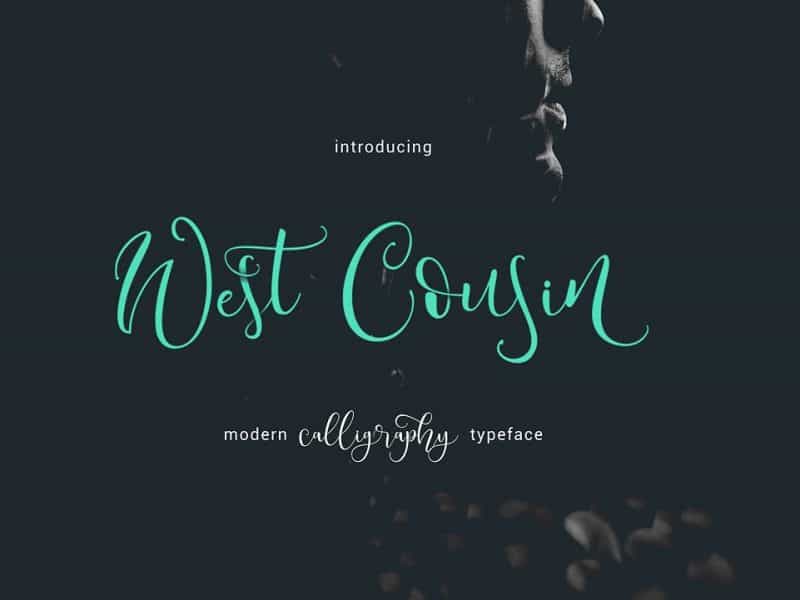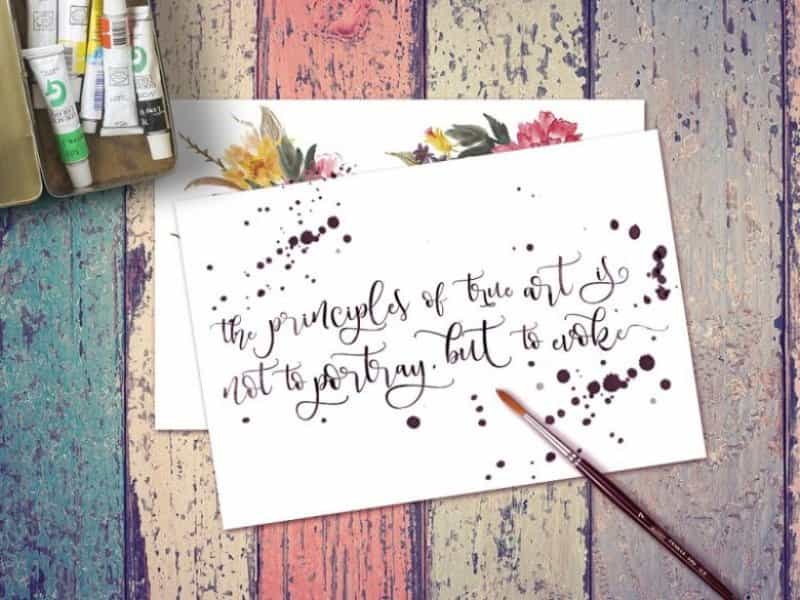
Introducing West Cousin Font! It was created and is now shared by thirtypath. West Cousin Typeface – a modern calligraphy font. West Cousin is a perfect choice for logotype, website header, fashion design,wedding card design and much more. The West Cousin font has a classy style, it has all the lower & uppercase letters, a wide range of punctuation marks and numerals as well as multilingual support.